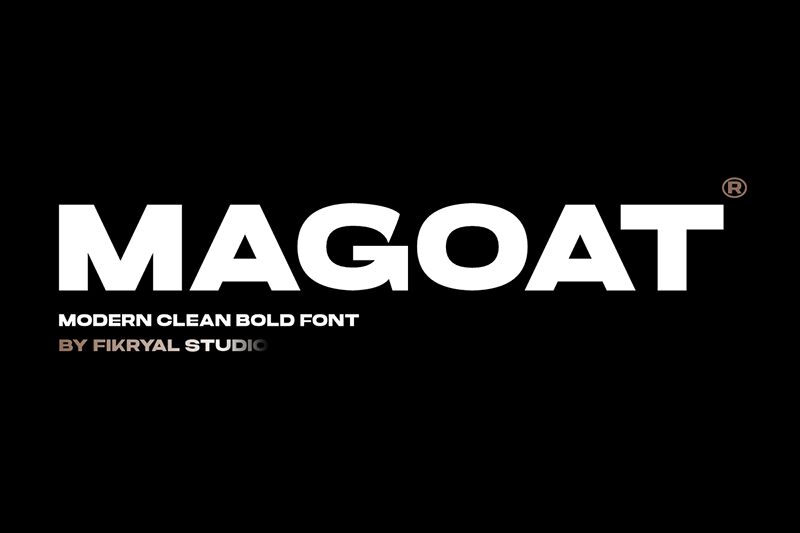
Magoat
Magoat font is a geometric sans serif typeface from Fikryal Studio with a bold weight and expanded width. It instantly draws attention thanks to its strong presence, clean lines, modern style, and unique letter features such as round curved corners in some characters. The aimed look is contemporary with an edge that can attract any modern reader.
Use this free sans serif font to instantly elevate your posters, header images, website titles, social media posts and covers. Other use case ideas include magazine titles or poster design, book covers or page headings typography within the book itself – including digital ebooks.